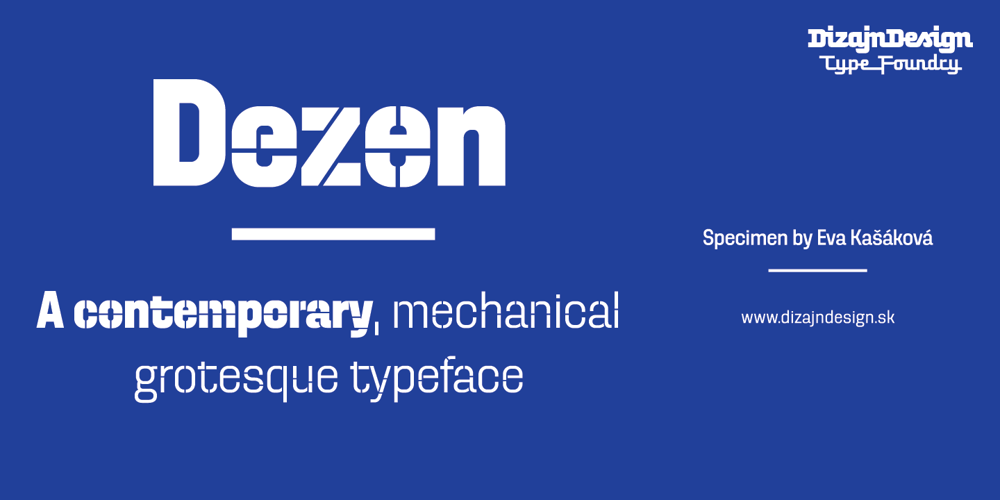
Dezen Solid
Dezen Solid font
Dezen Solid Font Family was designed by Ján Filípek and published by DizajnDesign. Dezen Solid contains 8 styles and family package options. Dezen is a contemporary, mechanical grotesque typeface. Its letters were first constructed from individual modules and then optically refined to enhance its rhythm. Its tight letter spacing and narrow proportions make the typeface particularly well suited for display sizes and headlines. When you add spacing, font can be used for shorter amount of text, bigger than 12 points. Dezen type family consists of a wide variety of styles – solid and stencils.Dezen Pro subfamily combines all 4 styles (Solid, Stencil 01, Stencil 02, Stencil 03) in a specific sequence, which originates a “pattern” for the alphabet (or dezen, in Slovak).